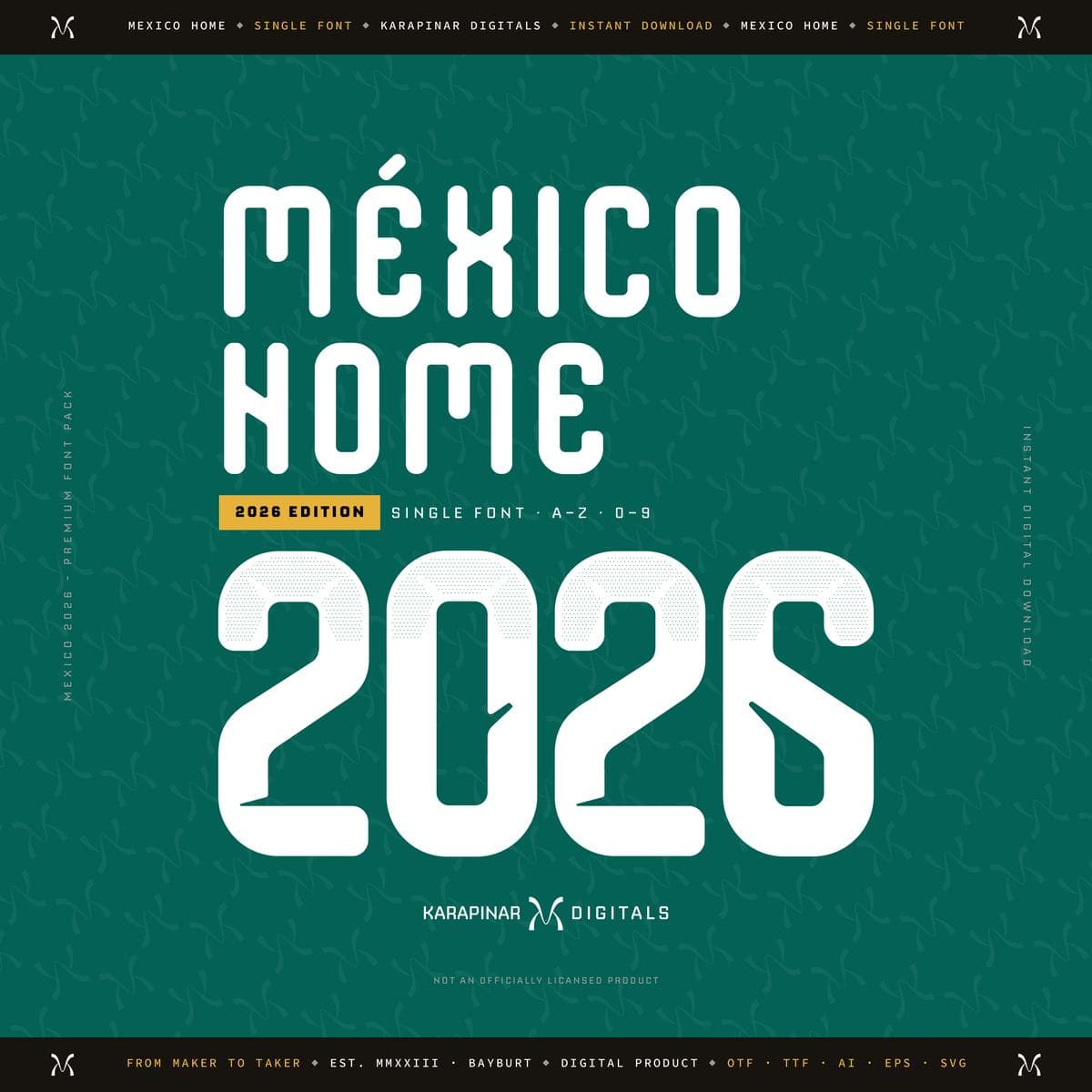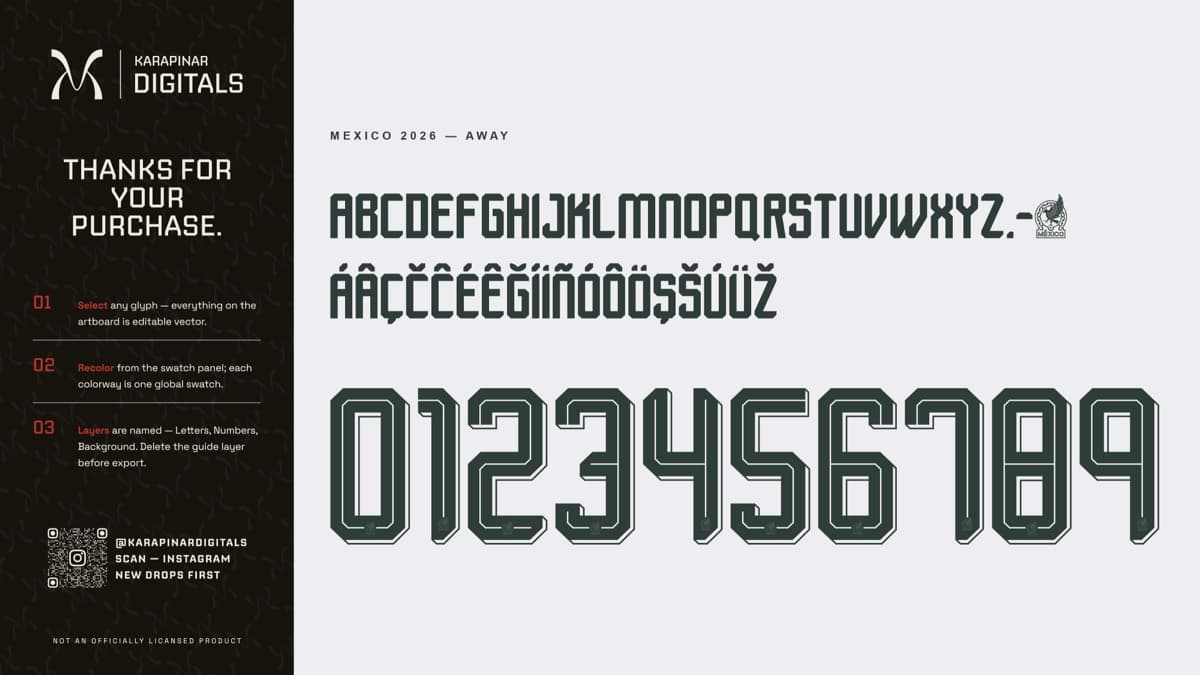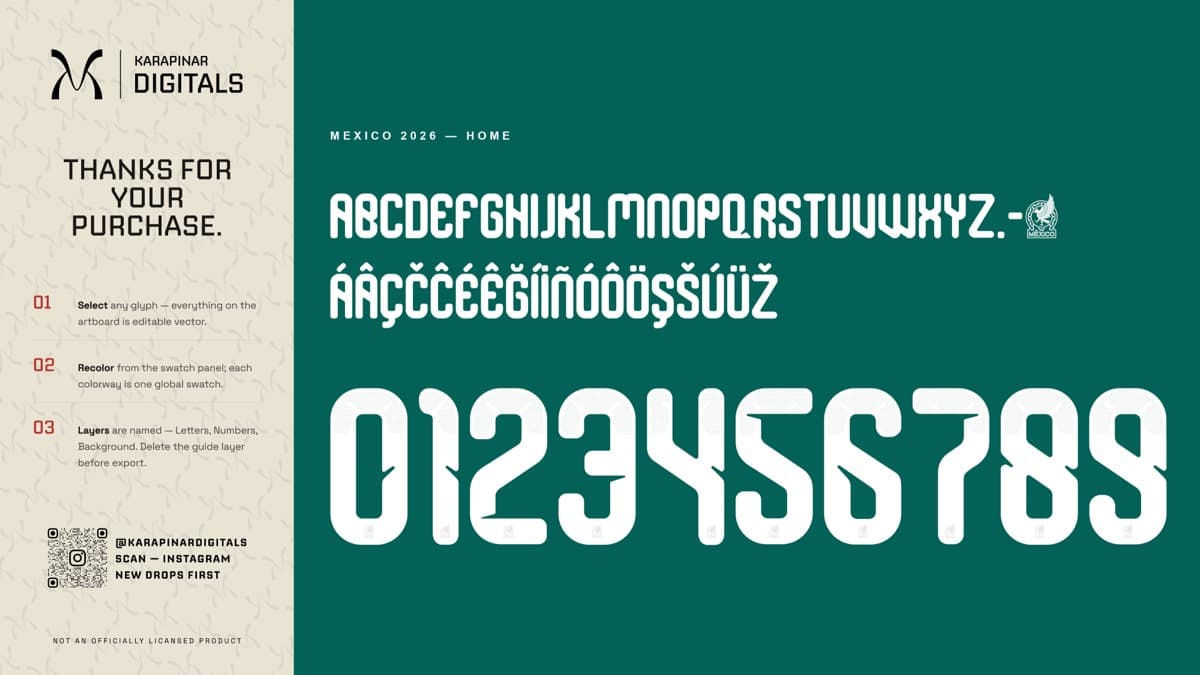
Mexico 2026
Mexico National Team · 2026 · 2 variants
Mexico 2026
A set inspired by the Mexico National Team 2026 jersey typography, with a name and number system redrawn for print and screen. Original curves, consistent weight and a complete 0–9 numeral family.